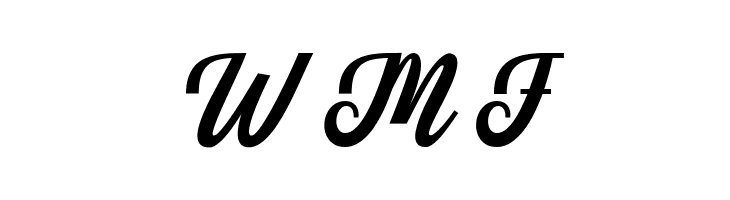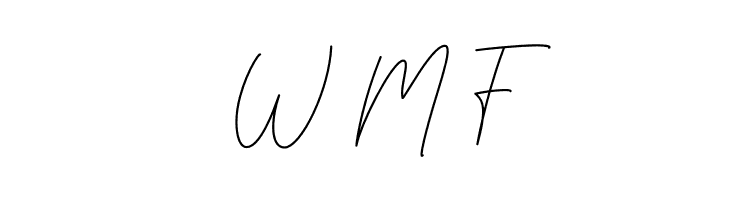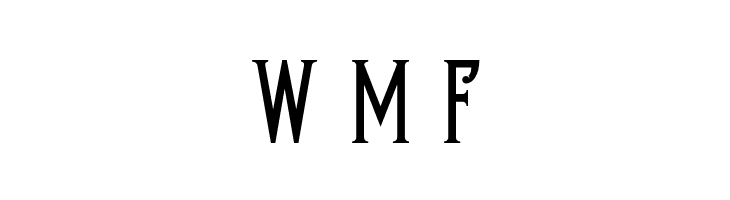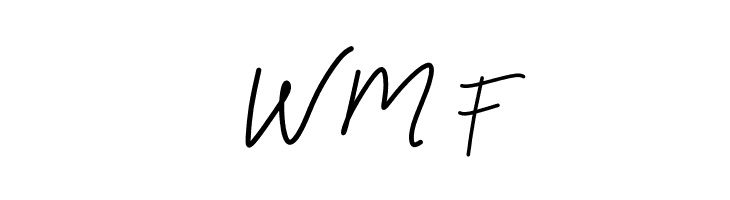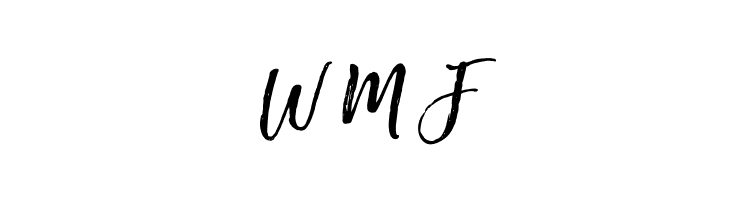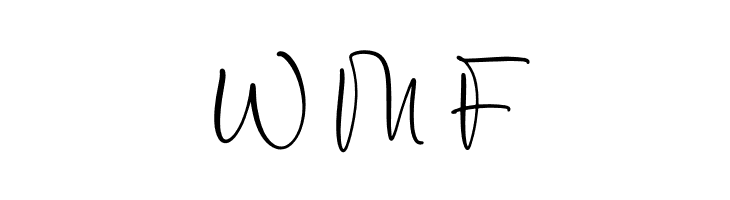
An elegant and sophisticated cursive script font with ornate uppercase and smooth lowercase letters.
A modern, elegant handwritten font with fluid, cursive letterforms.
A fluid, handwritten font with a casual and personal touch.
An elegant script font with flowing, cursive letterforms and a sophisticated style.
A dynamic, expressive handwritten font with fluid strokes and elegant loops.
A delicate and elegant script font with a handwritten appearance.
A bold, decorative font with tall, narrow characters and unique serifs.
A dynamic, cursive handwritten font with fluid strokes and connected letters.
A charming, elegant handwritten font with a classic calligraphy style.
Casual handwritten script font.